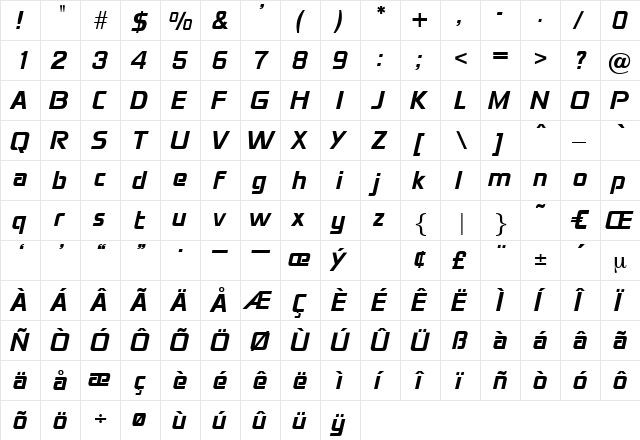
PanamaBold Regular
Design Context for PanamaBold Typeface
PanamaBold takes a measured approach to typography — its balanced proportions and neutral character make it a reliable workhorse for both digital and print work. Its bold stroke weight gives it real presence on the page.